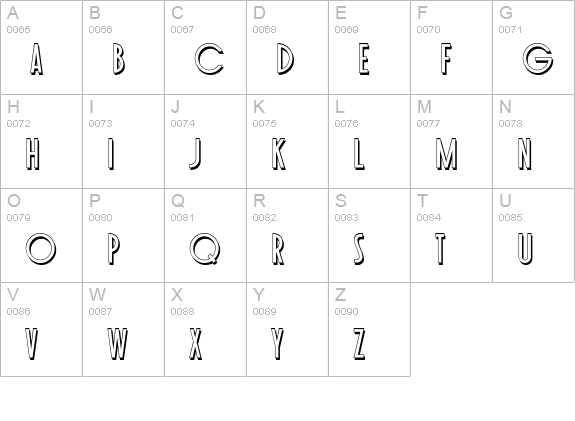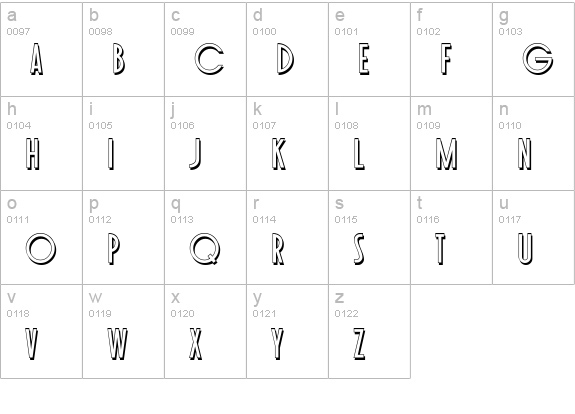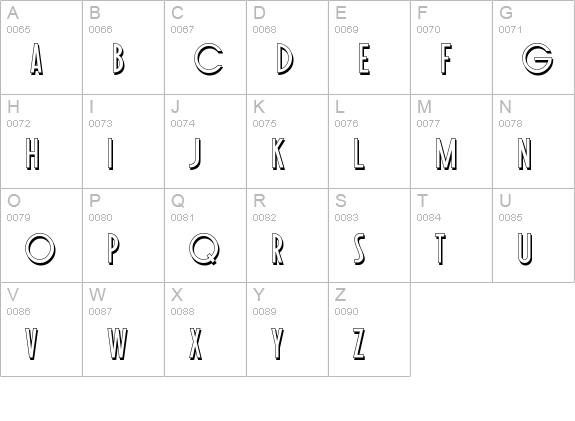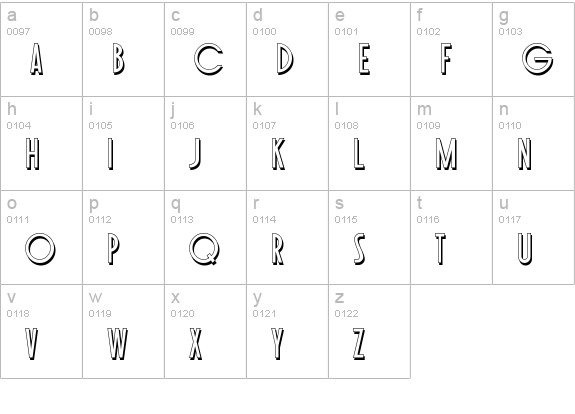
Toasted Vein BTN Shadow Font Details
Toasted Vein BTN Shadow font is an exquisite display typeface that will add a touch of sophistication to any design project. Its elegant and stylish appearance makes it perfect for logos, headlines, and branding materials. With its unique shadow effect, this font creates a three-dimensional look that adds depth and dimension to your text. The Toasted Vein BTN Shadow font boasts a perfect balance between modernity and traditional design elements. Its clean lines and sharp edges give it a contemporary feel, while its subtle shadow effect adds a classic touch. This font is versatile and can be used in a wide range of design applications, from print to digital media. One of the best things about the Toasted Vein BTN Shadow font is that it is available for free download at FontsMarket.com. This means that you can enjoy the elegance and beauty of this font without having to spend a single penny. Whether you are a professional designer or a hobbyist, this font is a valuable addition to your font library. With its legibility and distinctiveness, the Toasted Vein BTN Shadow font will surely make your designs stand out from the crowd. It is perfect for creating eye-catching headlines, captivating logos, and memorable branding materials. Its versatility and timeless appeal make it a must-have font for any designer looking to make a lasting impression. So why wait? Download the Toasted Vein BTN Shadow font for free at FontsMarket.com and start elevating your design projects to new heights. Embrace the elegance and sophistication that this font brings and let your creativity shine. Whether you are designing for personal or commercial purposes, this font will surely make a statement. Don't miss out on this amazing opportunity to enhance your designs with a font that is both visually stunning and freely available.